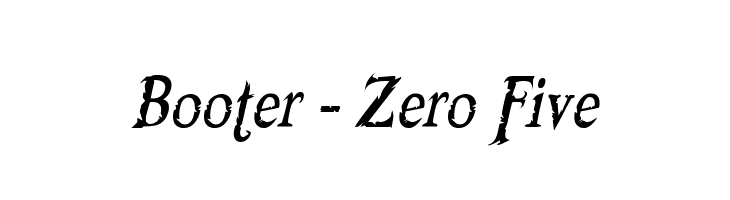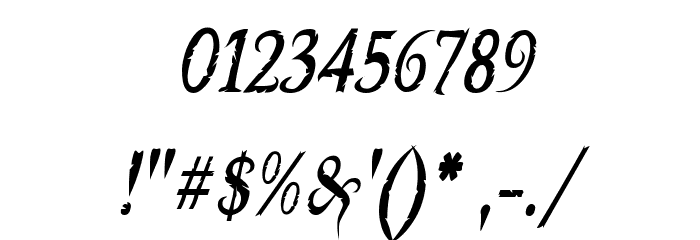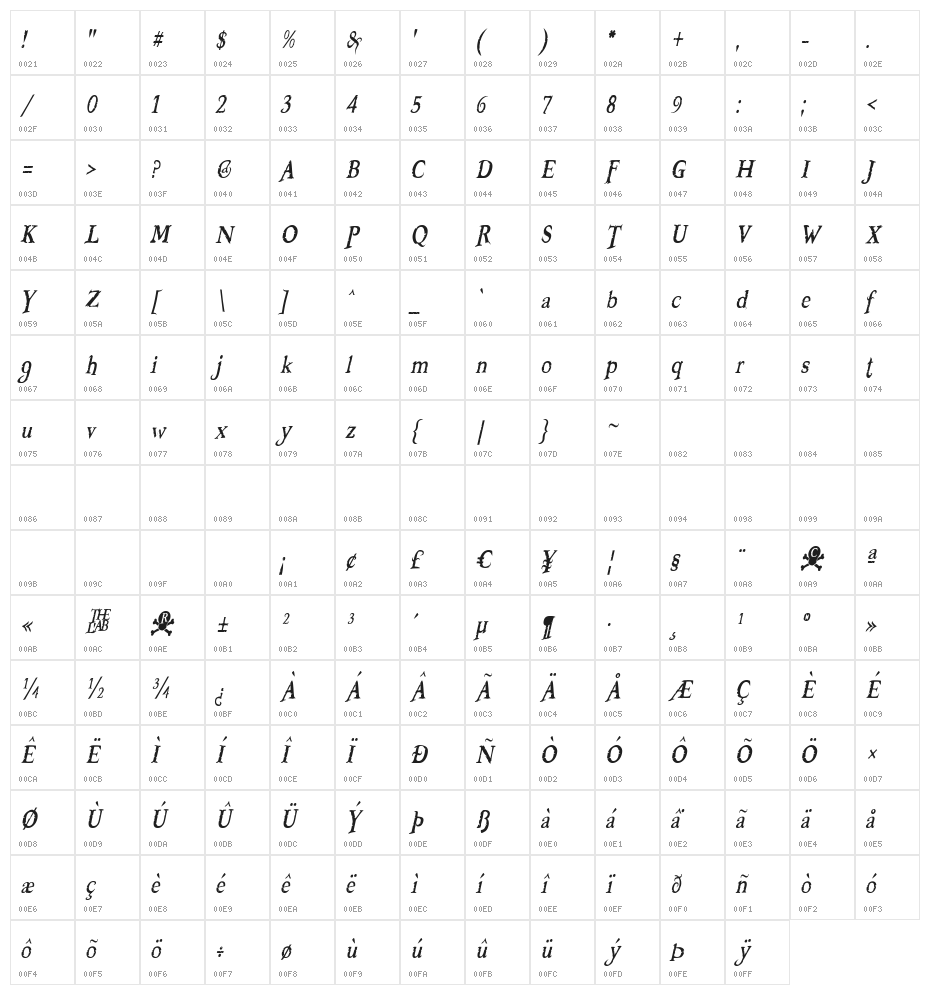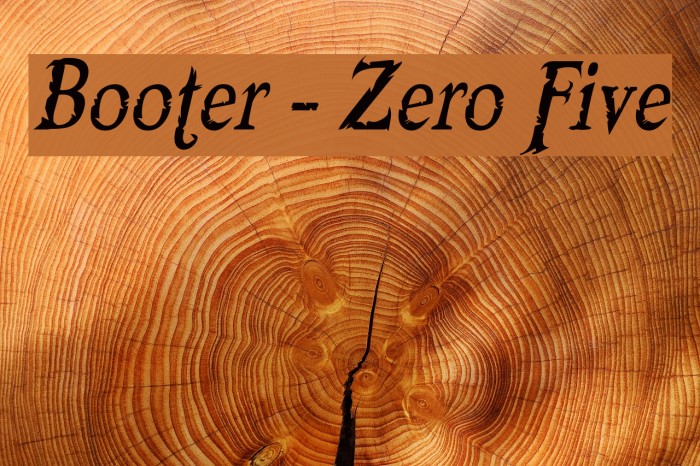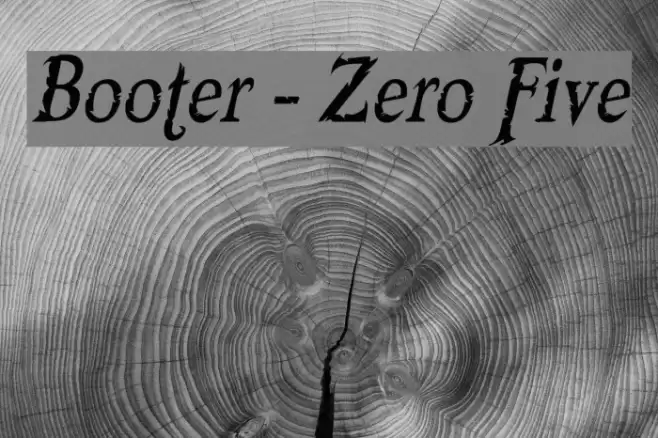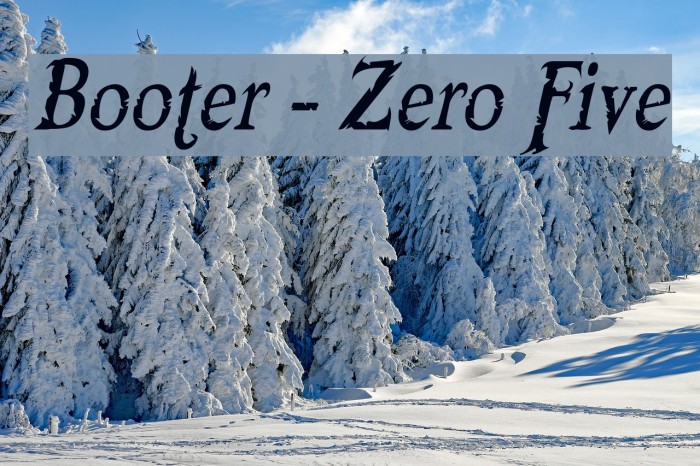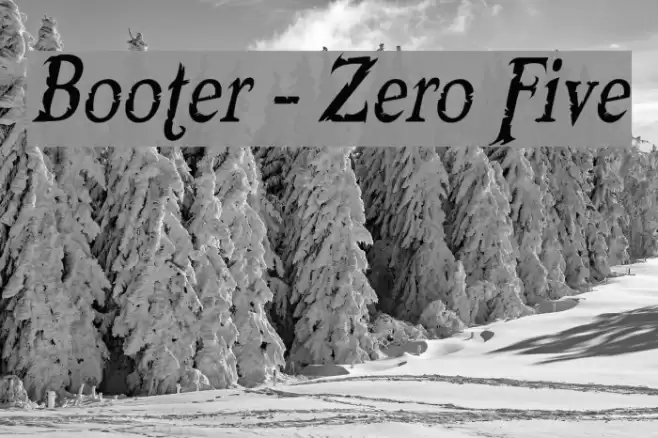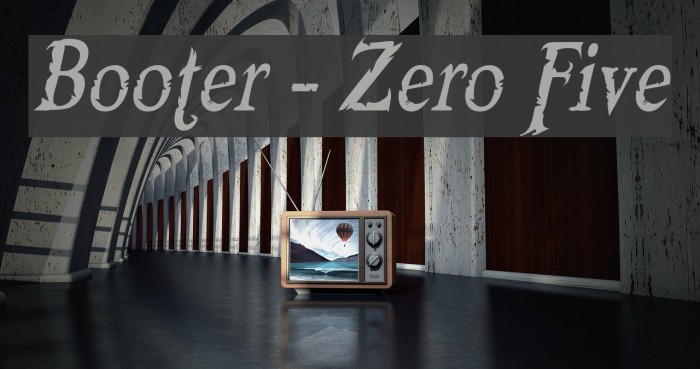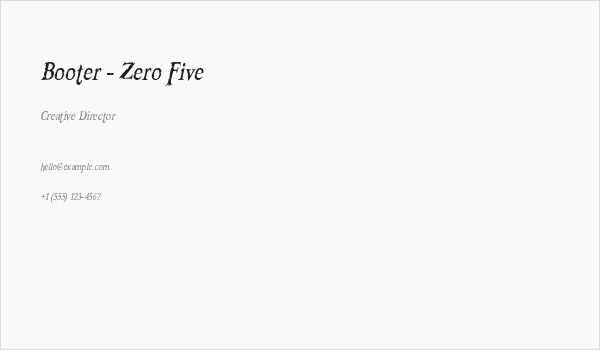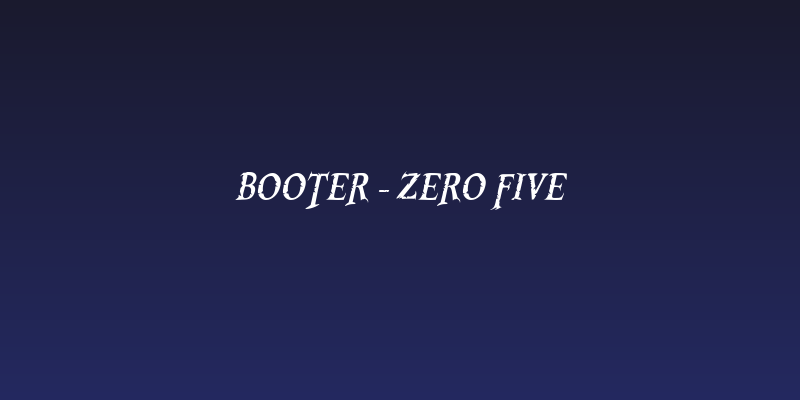
Booter - Zero Five Font
Booter - Zero Five Description
This font features a dynamic and edgy style with sharp, angular serifs and a slightly italicized form. The characters have a distinct, aggressive flair, with jagged edges that give it a unique, rebellious appearance. The uppercase letters are bold and commanding, while the lowercase letters maintain the same sharpness but with a more subtle presence. The numerals and special characters follow the same design principles, ensuring consistency across all elements. This font is perfect for projects that require a bold statement or a touch of unconventional style.
| Proposed Projects | Ideal for album covers, movie posters, branding for edgy products, or any design needing a bold, unconventional look. |